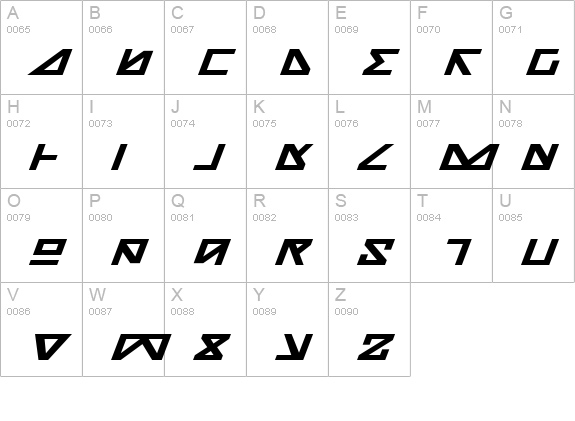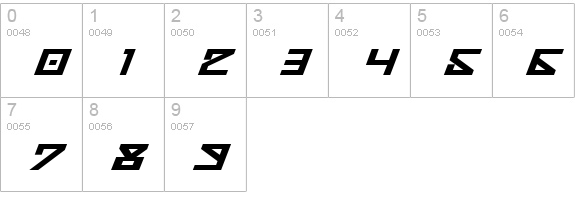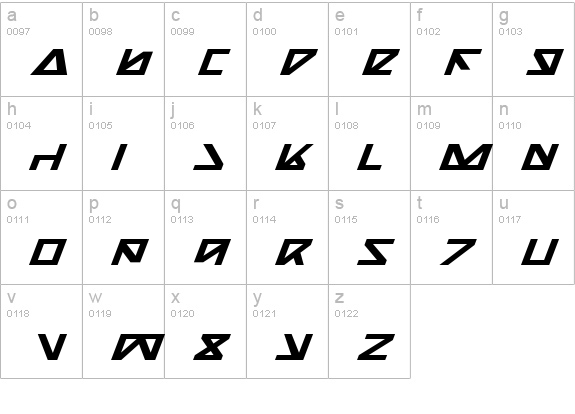
Nick Turbo Bold Expanded Italic Font Details
Nick Turbo Bold Expanded Italic is a strong, high-contrast, extended-width, italic variant in the Nick typeface family \xE2\x80\x94 well suited to headlines, attention-grabbing titles, and strong calls-to-action.
Nick Turbo Bold Expanded Italic is a dynamic and eye-catching font that exudes confidence and modernity. Its bold and expanded design gives it a unique edge, making it perfect for headlines, titles, and logos that demand attention. The italicized slant adds a touch of elegance and sophistication to any design project. This versatile font is ideal for a wide range of creative applications, from posters and flyers to websites and branding materials. Its bold strokes and expanded letterforms make a bold statement, while the italicized style adds a sense of movement and personality. Best of all, Nick Turbo Bold Expanded Italic is available for free download at FontsMarket.com. Whether you're a seasoned designer looking to add a new font to your collection or a beginner exploring different typographic styles, this font is a must-have. Download it today and add a touch of boldness and flair to your designs!